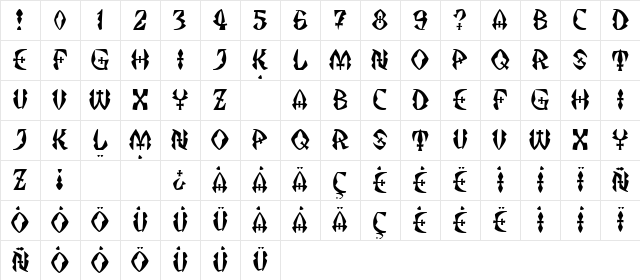
JMH Strigoi II Regular Free Font
JMH Strigoi II Regular
JMH Strigoi II Family
Design Context for JMH Strigoi II
JMH Strigoi II is a composed and adaptable typeface that performs quietly and consistently across a wide range of design contexts.